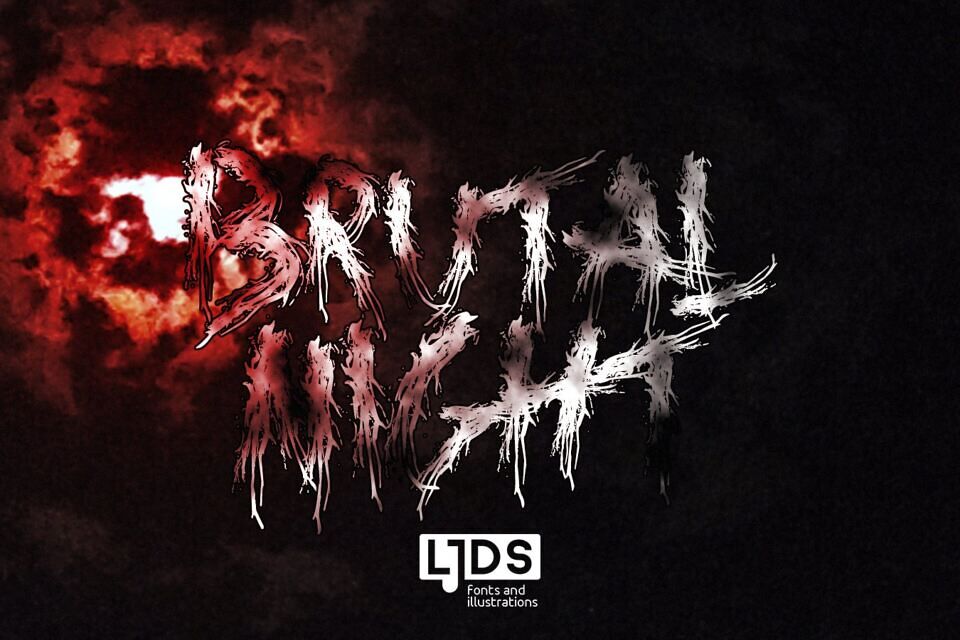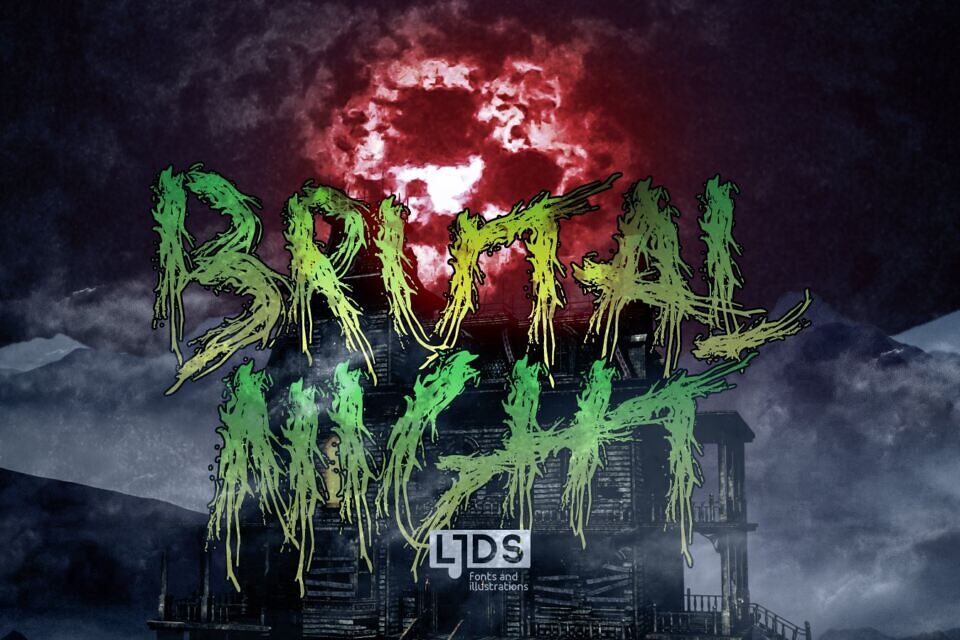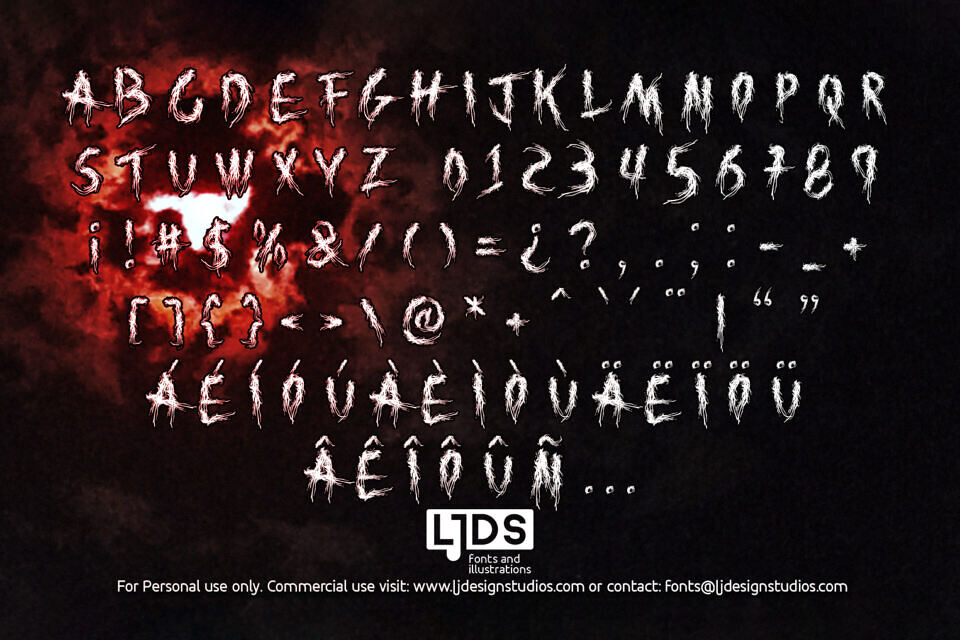
Call it “the evolution of Dreams of Death” but you should know this: Thinking of a good Halloween night, we created a version with a root brush, which reveals the letters somewhat horrifying and very ugly!
Brutal Night Font, crafted by LJ Design Studios, is a chilling evolution of Dreams of Death. Inspired by a haunting Halloween vibe, its root brush style creates horrifying, jagged letters perfect for heavy metal band logos, horror-themed designs, or bold statements.